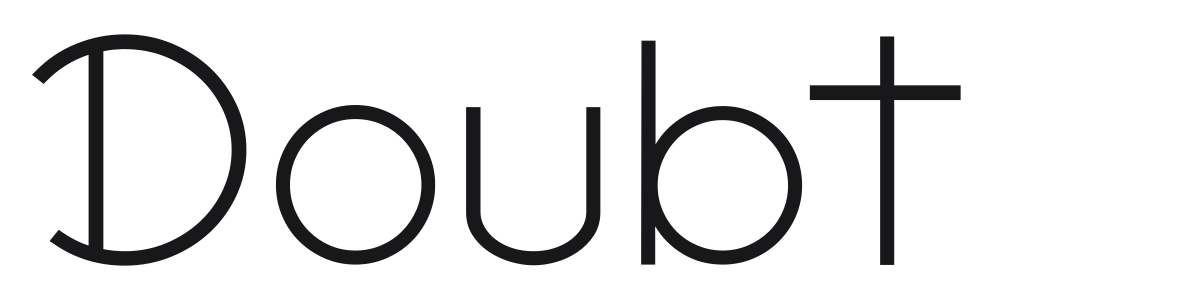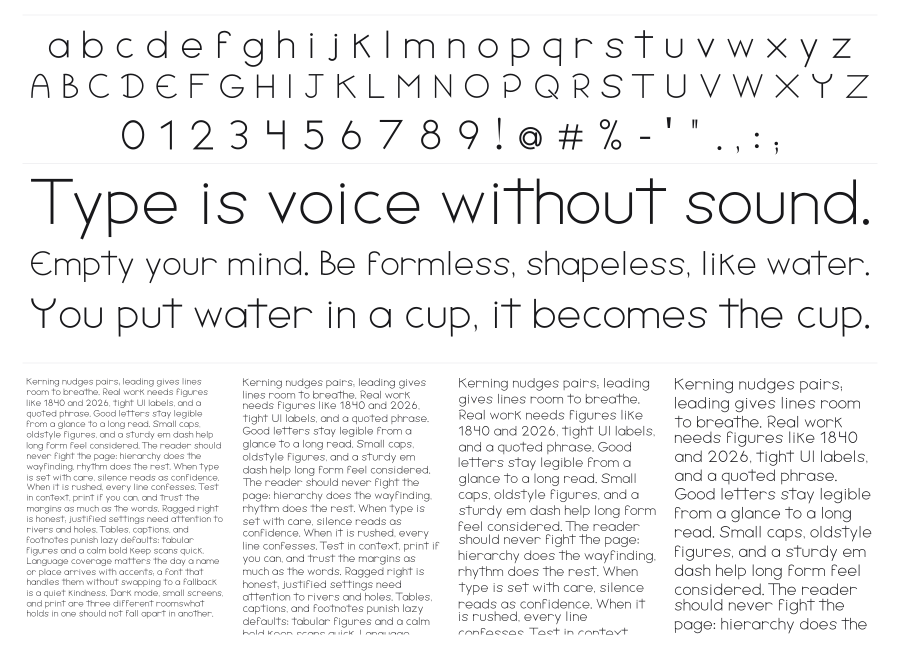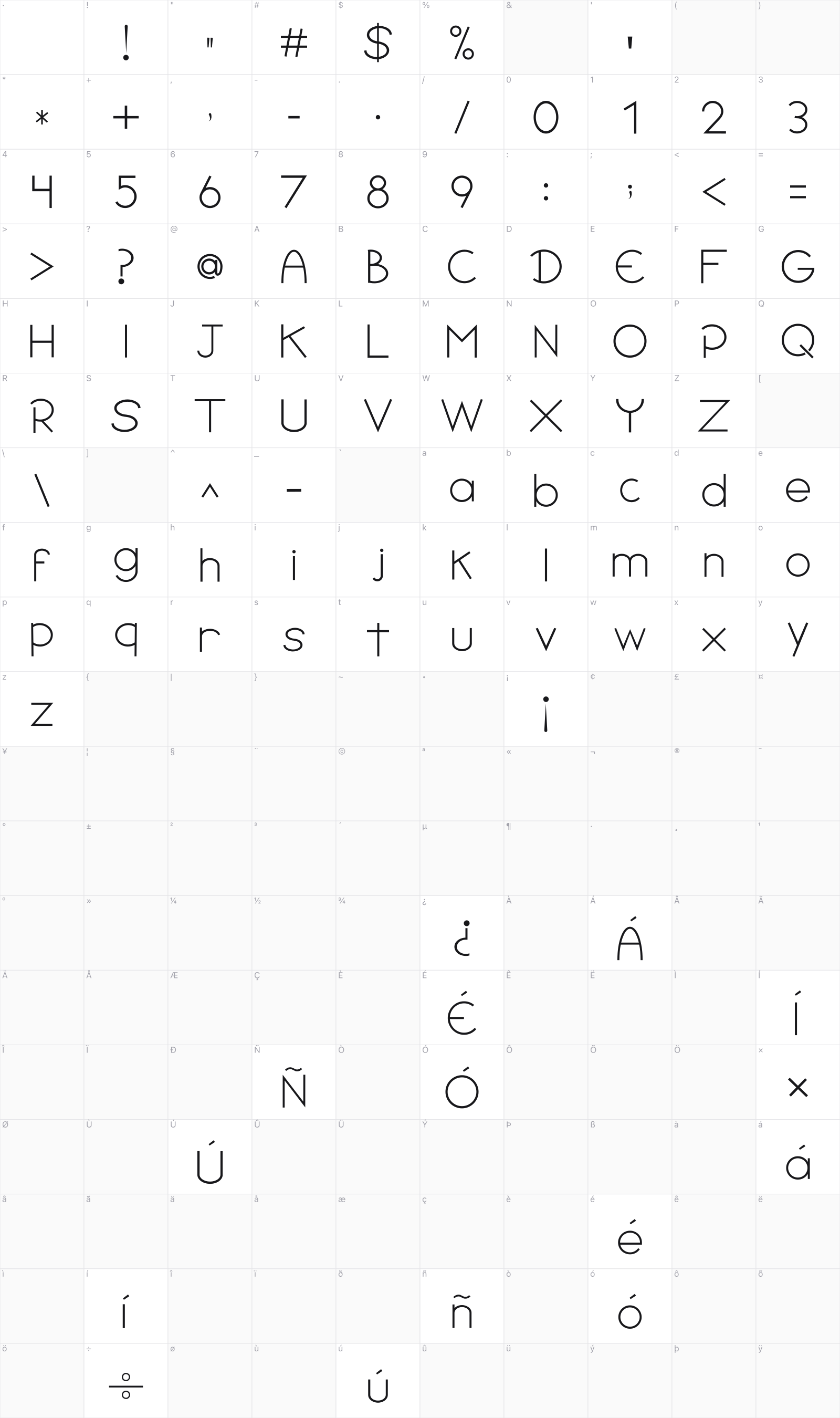
Doubt
by Amar Shraim
Doubt is a wide, hairline geometric sans-serif built from softly circular forms and near-monoweight strokes. The rounded terminals and generous proportions give it a quiet, understated elegance without ever feeling cold. It sits comfortably in fashion, beauty, or architectural branding where restraint is the point.